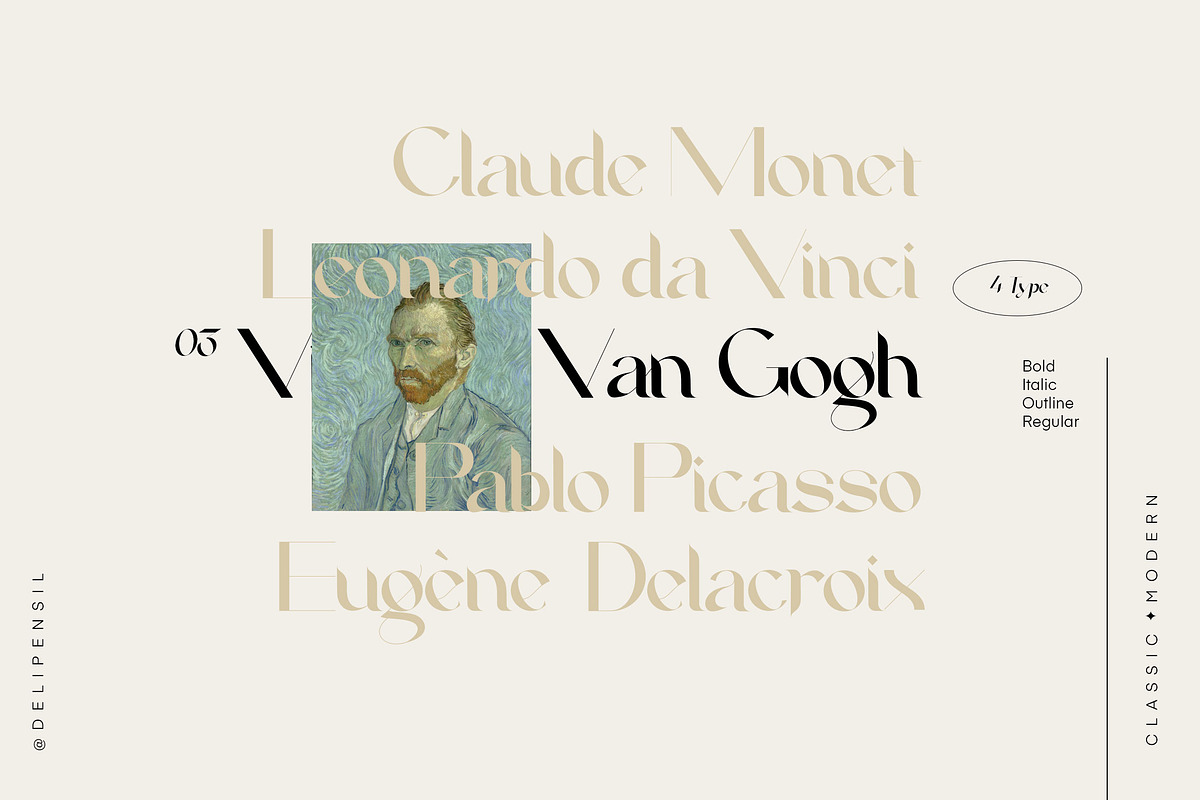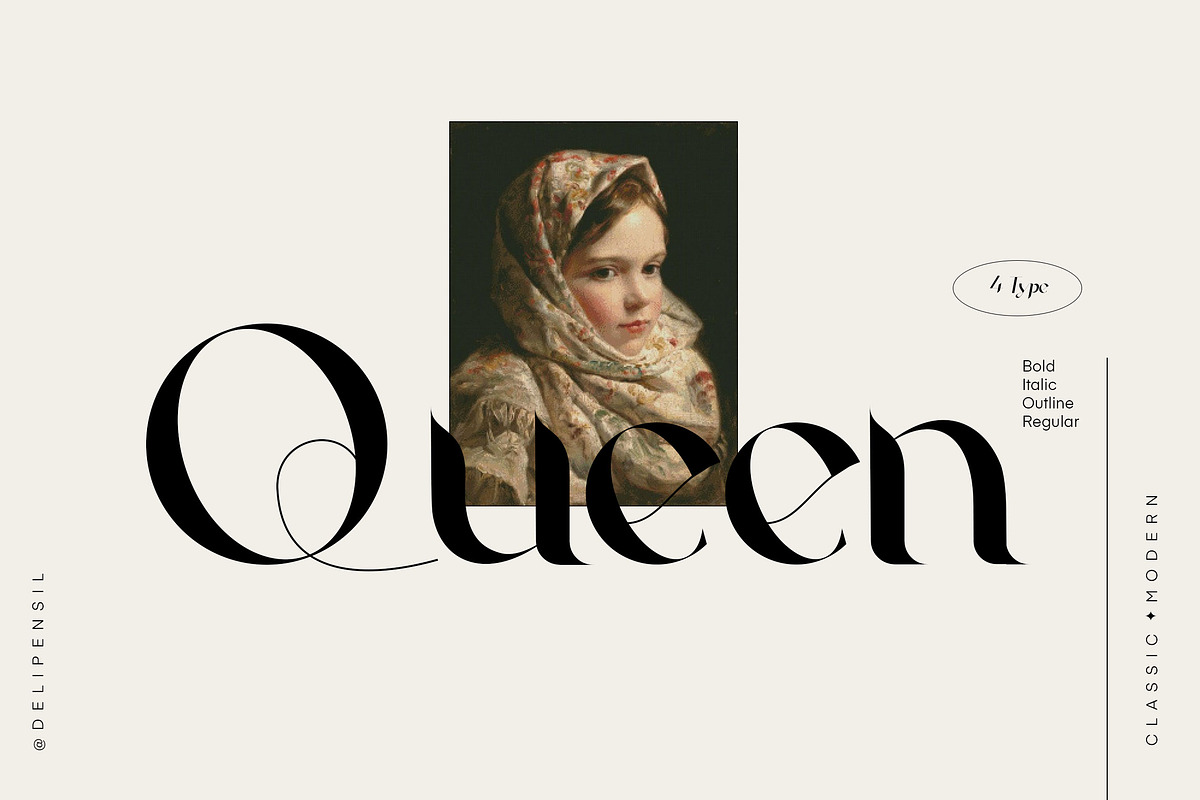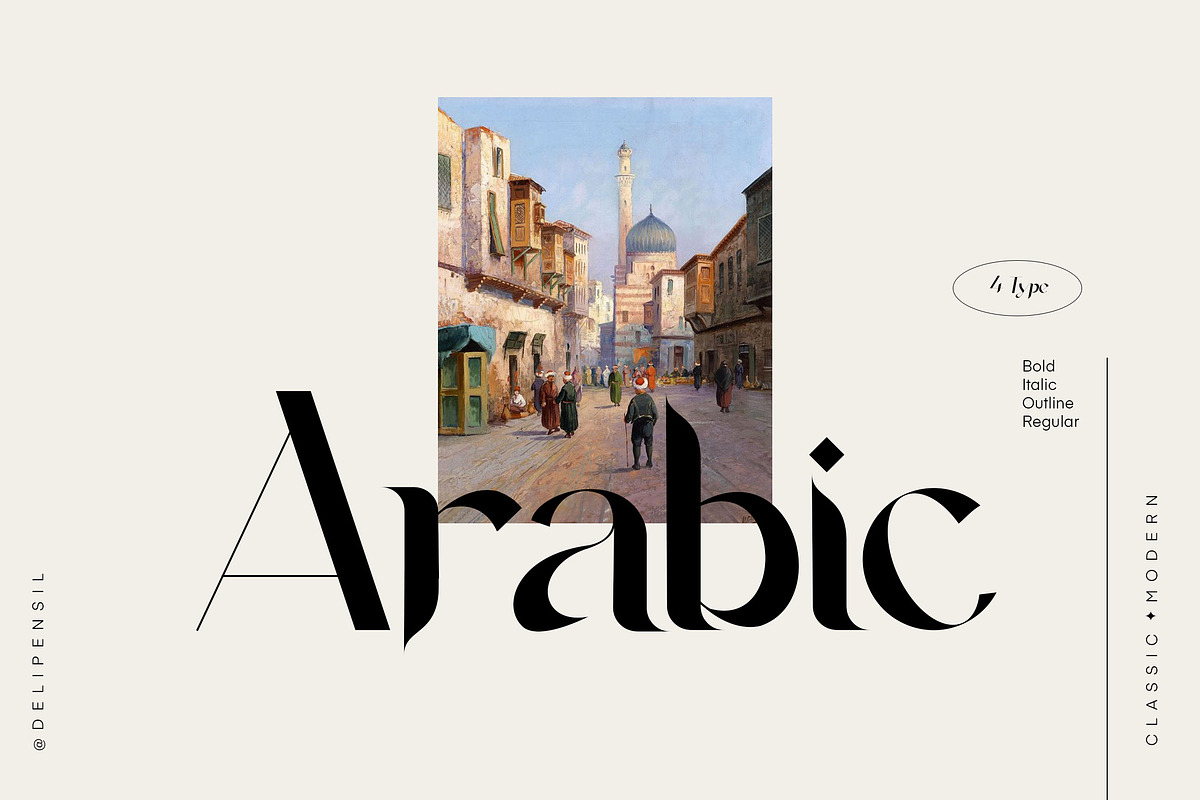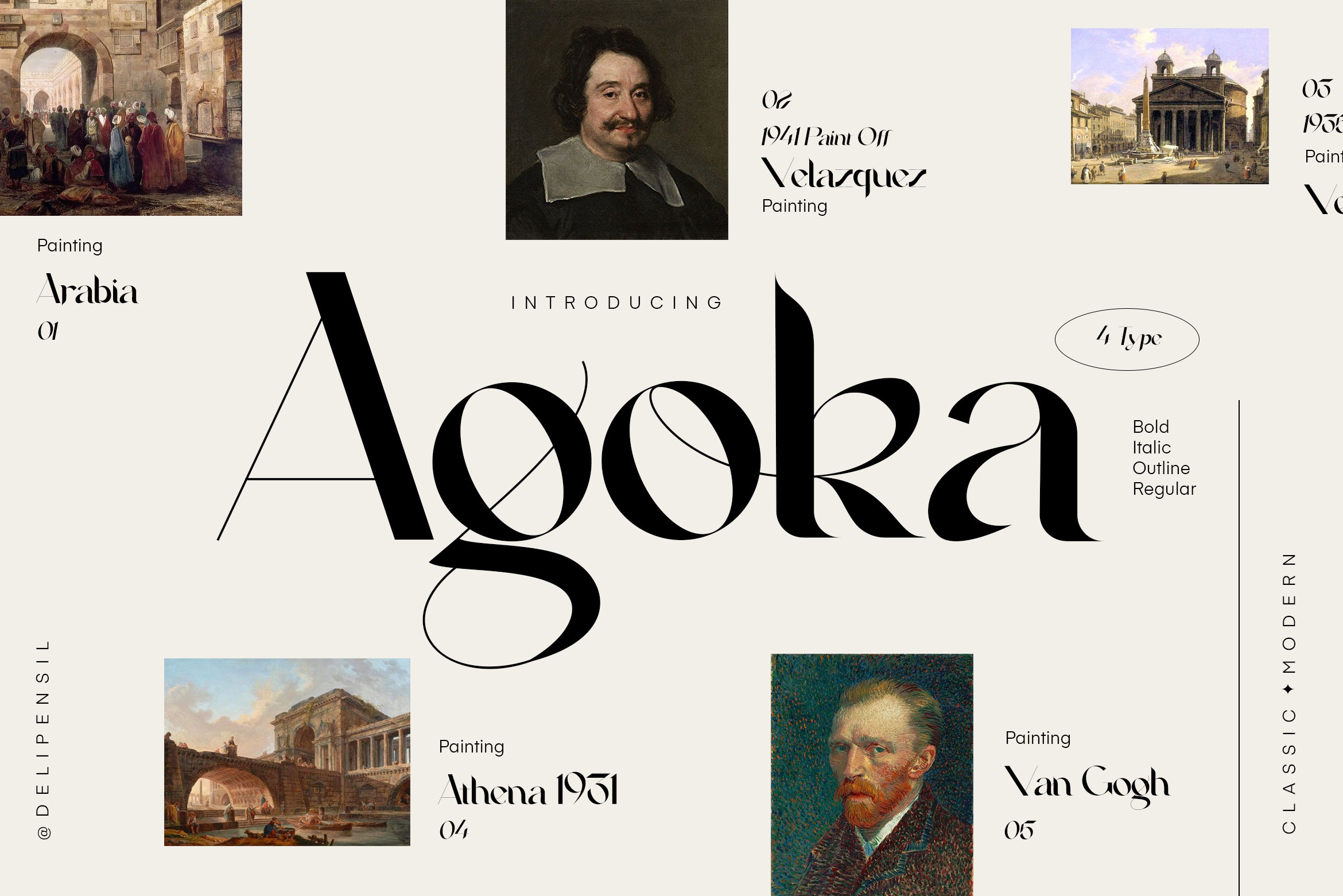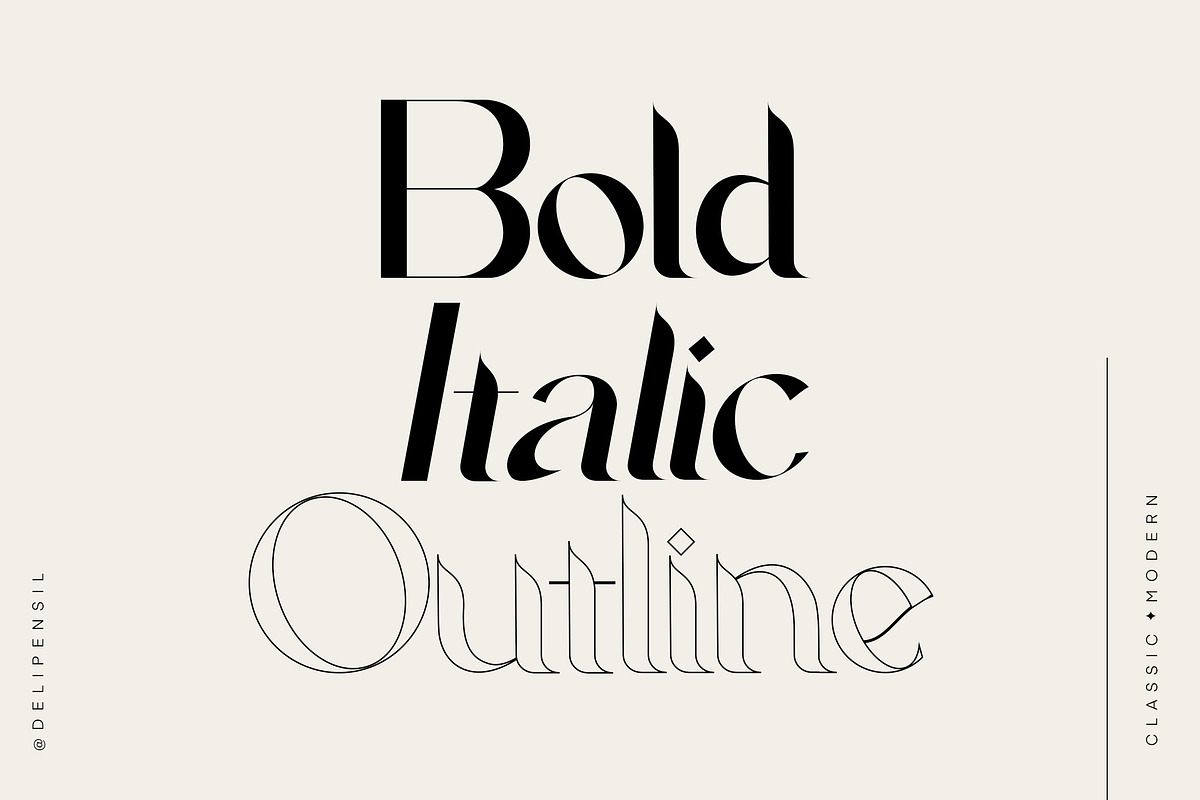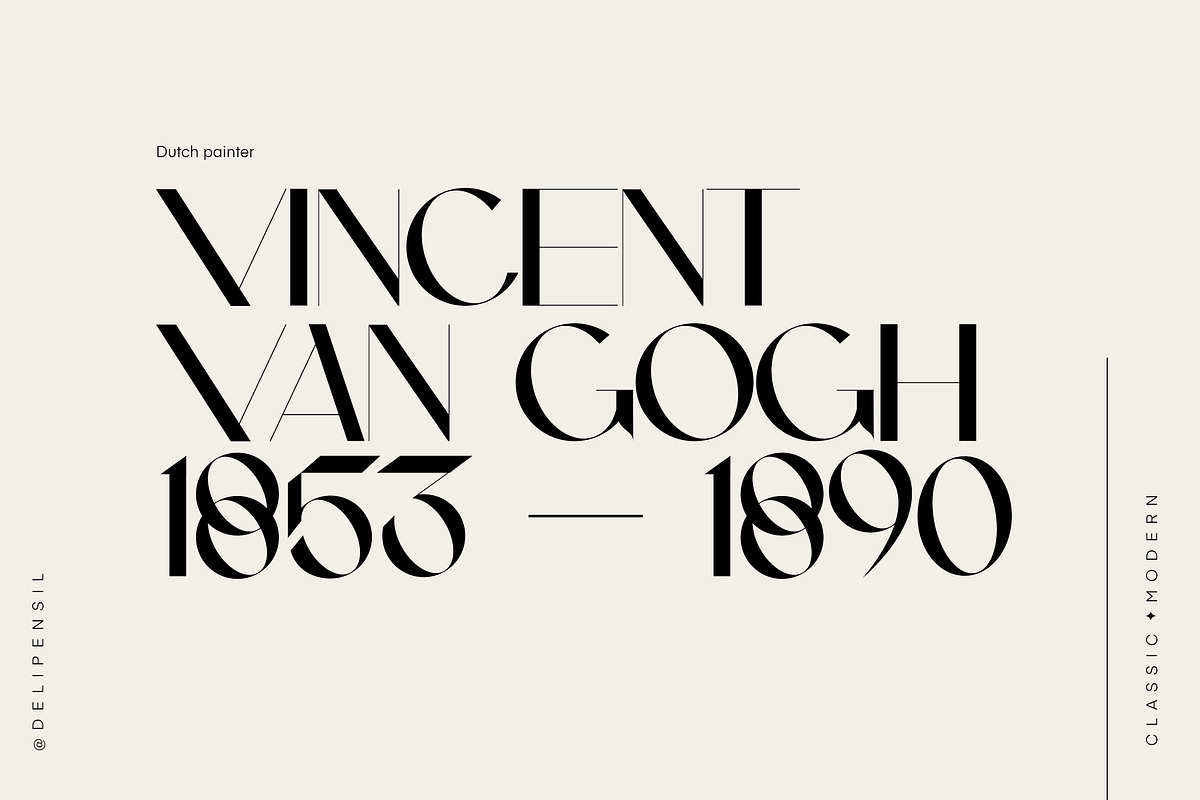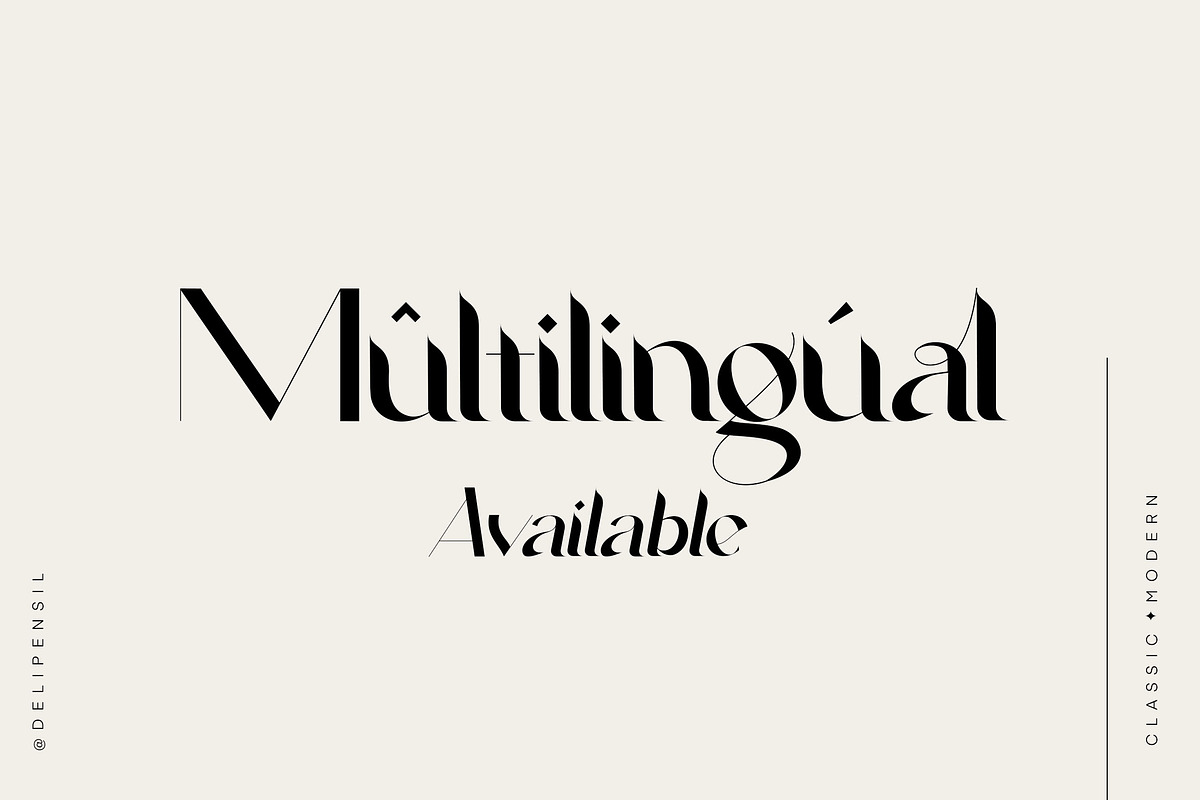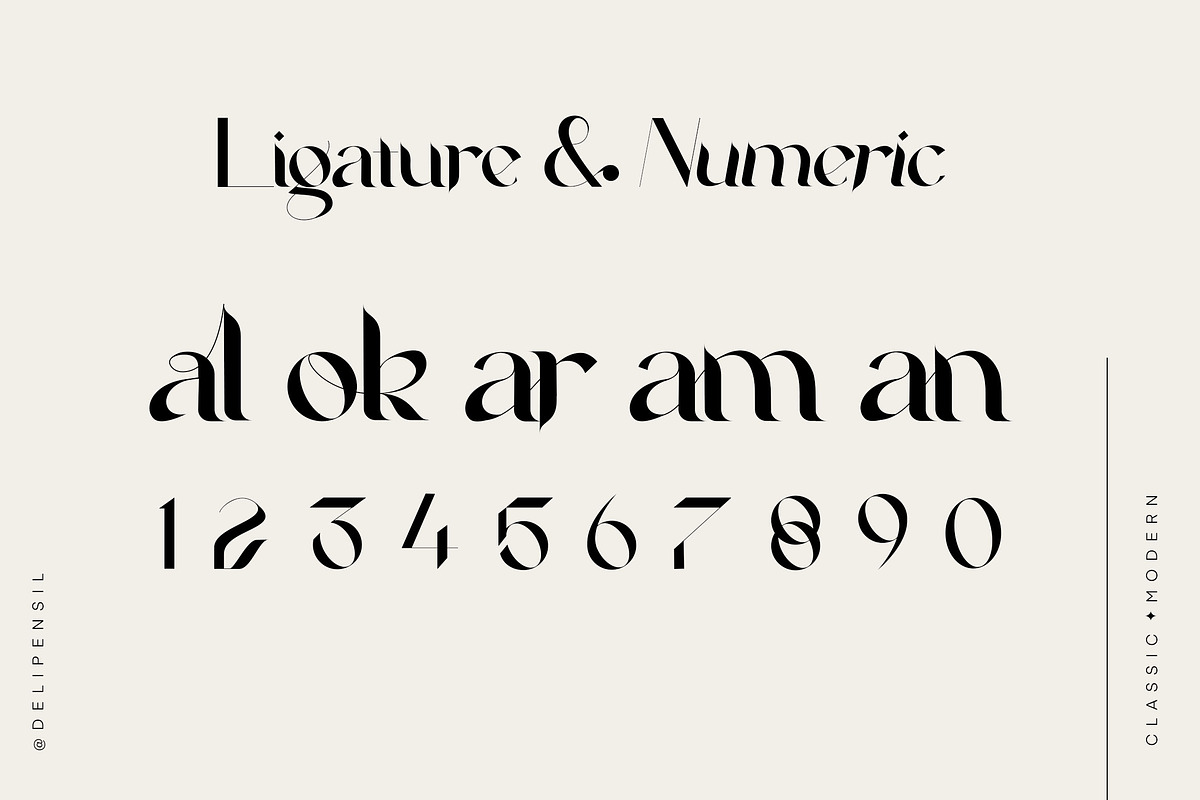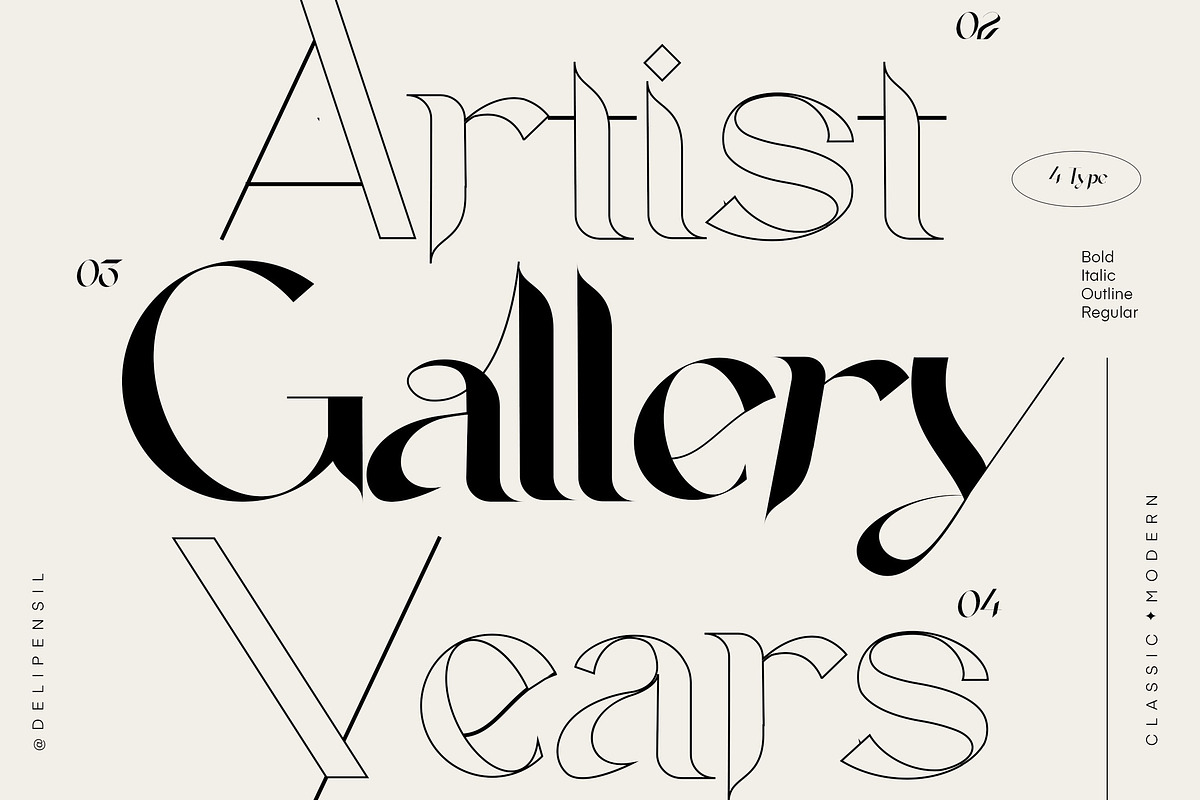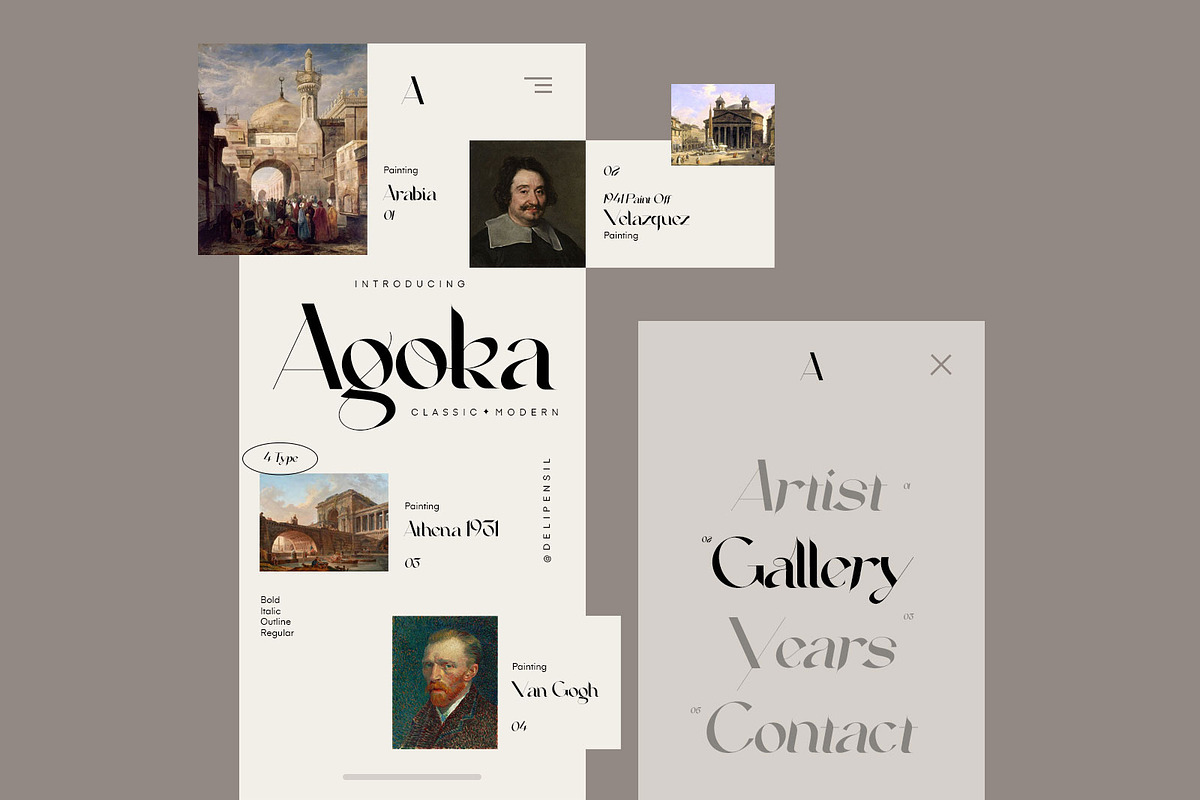
Agoka Modern Classic Typeface
Bismillah, Introduction Agoka - A Beautiful Classic Modern Typeface 👑✨
Elegant Beauty Serif font, clean and mindful , it combine in one font, use this font for anything beauty place for your logo, headline, cover book, magazine, website and many more
- Agoka Font Style
- Agoka Numeral & Punctuation
- Agoka Kerning Style
- Agoka Ligature Style
- Agoka 4 Style Typeface